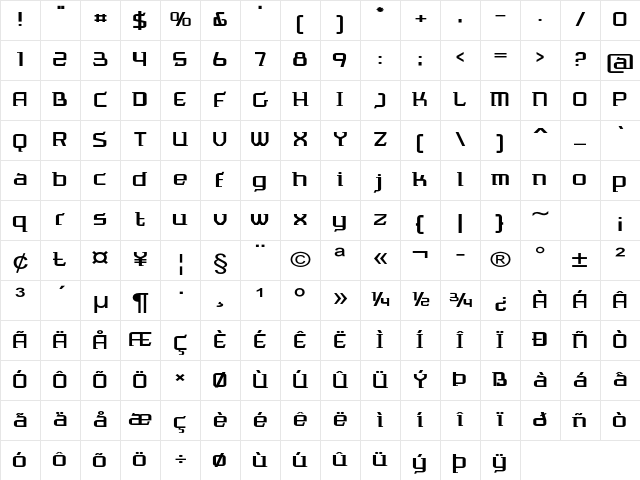
Nixo Expanded Bold
Style: Expanded Bold
Nixo Family
Complete Nixo Expanded Bold glyph index. Displaying only characters natively supported by Nixo Expanded Bold font.
Design Context for Nixo
Nixo is a composed and adaptable typeface that performs quietly and consistently across a wide range of design contexts. Its bold stroke weight gives it real presence on the page.